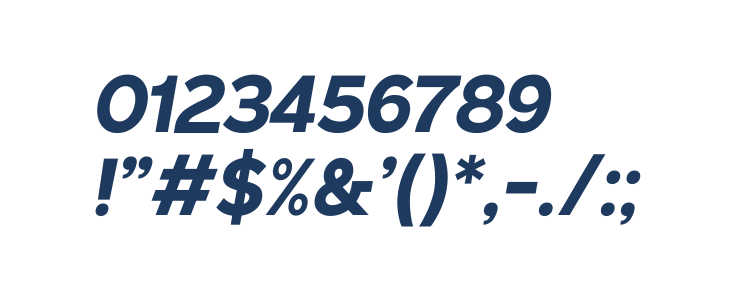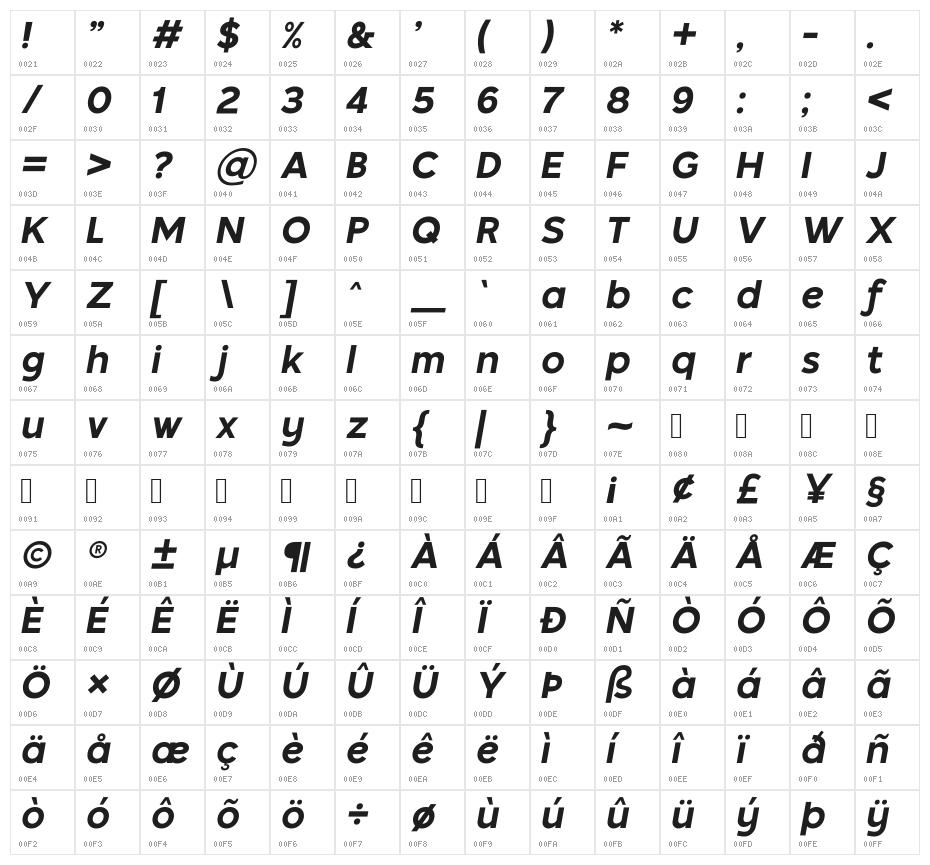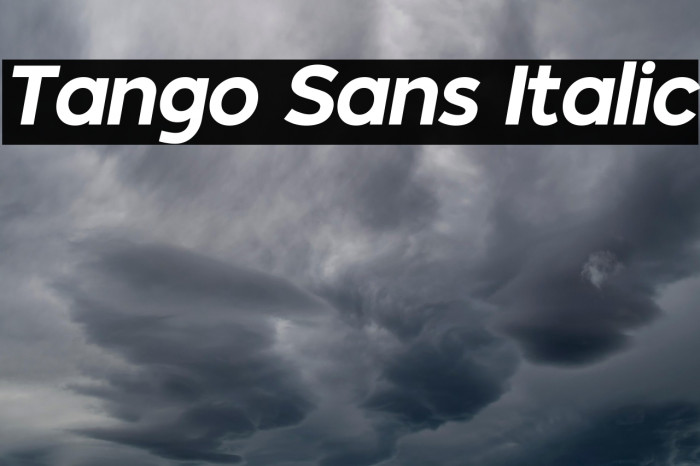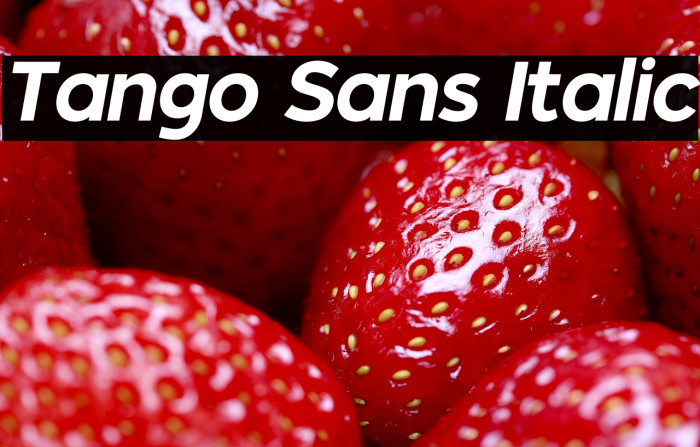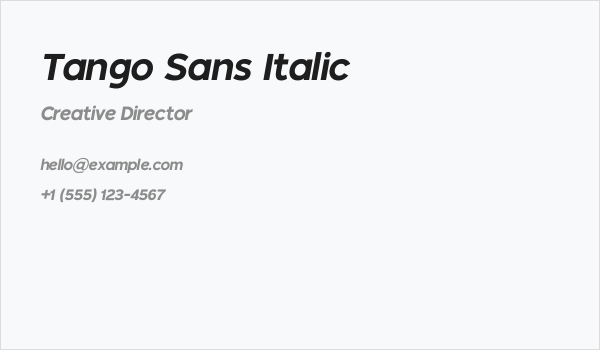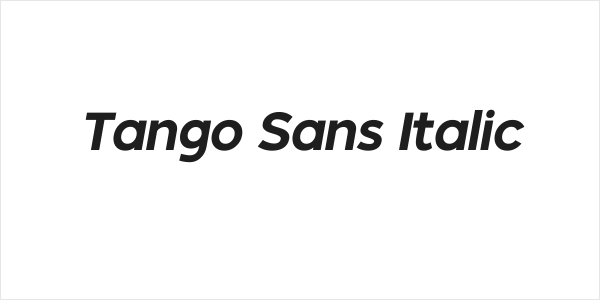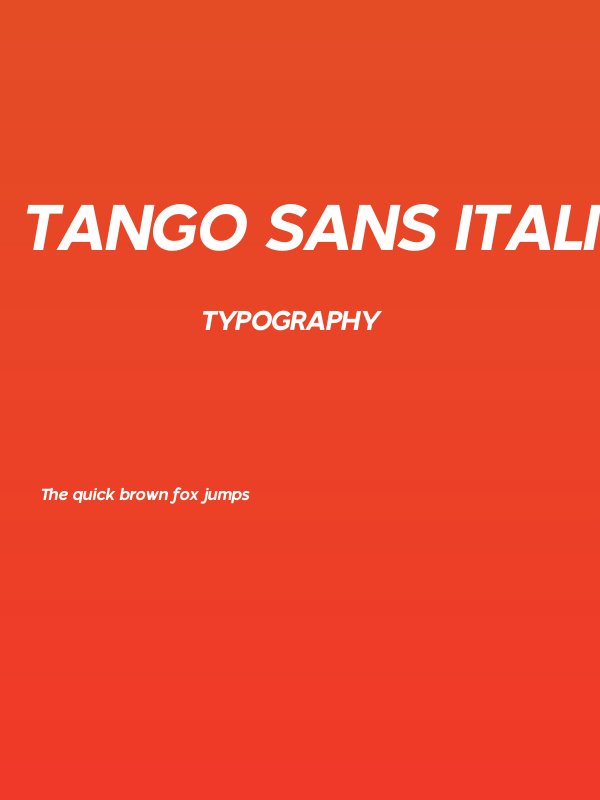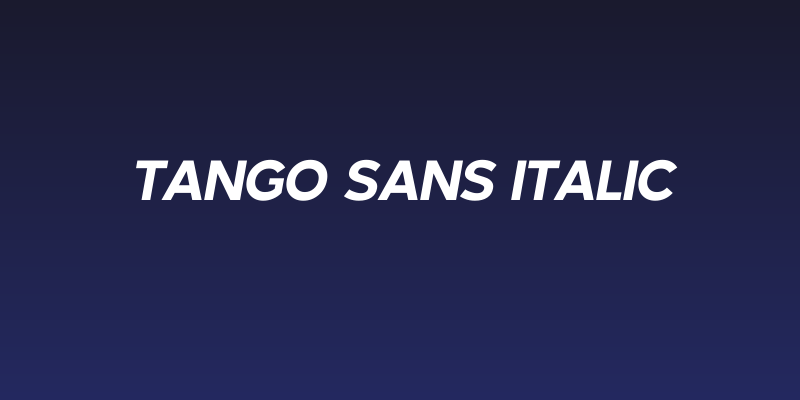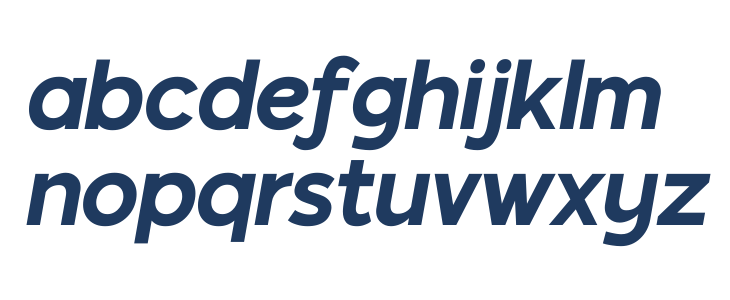
Tango Sans Italic Font
Tango Sans Italic Description
This font features a sleek and modern sans-serif design with a distinct italic slant, giving it a dynamic and forward-moving appearance. The characters are bold and well-defined, with smooth curves and clean lines that enhance readability. The uppercase and lowercase letters maintain a consistent style, while the numerals and special characters are crafted to match the overall aesthetic. The font's structure is balanced, with a slight emphasis on horizontal strokes, contributing to its contemporary look.
Use CaseHeadlines, Logos, Digital Media
Proposed ProjectsIdeal for branding projects, advertising, digital media, and modern web design.